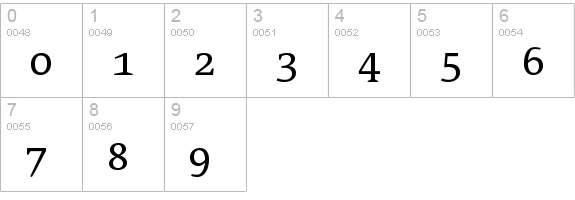
TheAntiquaSun Font Details
TheAntiquaSun font is a timeless and elegant typeface that exudes sophistication and class. With its graceful serifs and delicate curvature, this font captures the essence of traditional calligraphy while adding a modern twist. It is the perfect choice for projects that require a touch of refinement, whether it be wedding invitations, formal correspondence, or branding materials. TheAntiquaSun font stands out for its versatility, as it can effortlessly adapt to various design styles and contexts. Its clean and legible characters make it equally suitable for both print and digital applications. From elegant headlines to body text, this font maintains its elegance and readability at any size. One of the most appealing aspects of TheAntiquaSun font is that it is completely free. Yes, you read that right! It is freely available to download at FontsMarket.com. This means that you can add a touch of sophistication to your designs without breaking the bank. Whether you are a professional designer or a hobbyist, this font is a valuable addition to your typographic arsenal. In addition to its aesthetic appeal and affordability, TheAntiquaSun font also offers a wide range of language support. With its extensive character set, it can accommodate various languages, ensuring that your message is effectively communicated to a global audience. Overall, TheAntiquaSun font is a true gem in the world of typography. Its timeless beauty, versatility, and free availability make it a must-have for designers and creatives. So why wait? Head over to FontsMarket.com and download this stunning font today. Enhance your designs with TheAntiquaSun and let its elegance shine through.